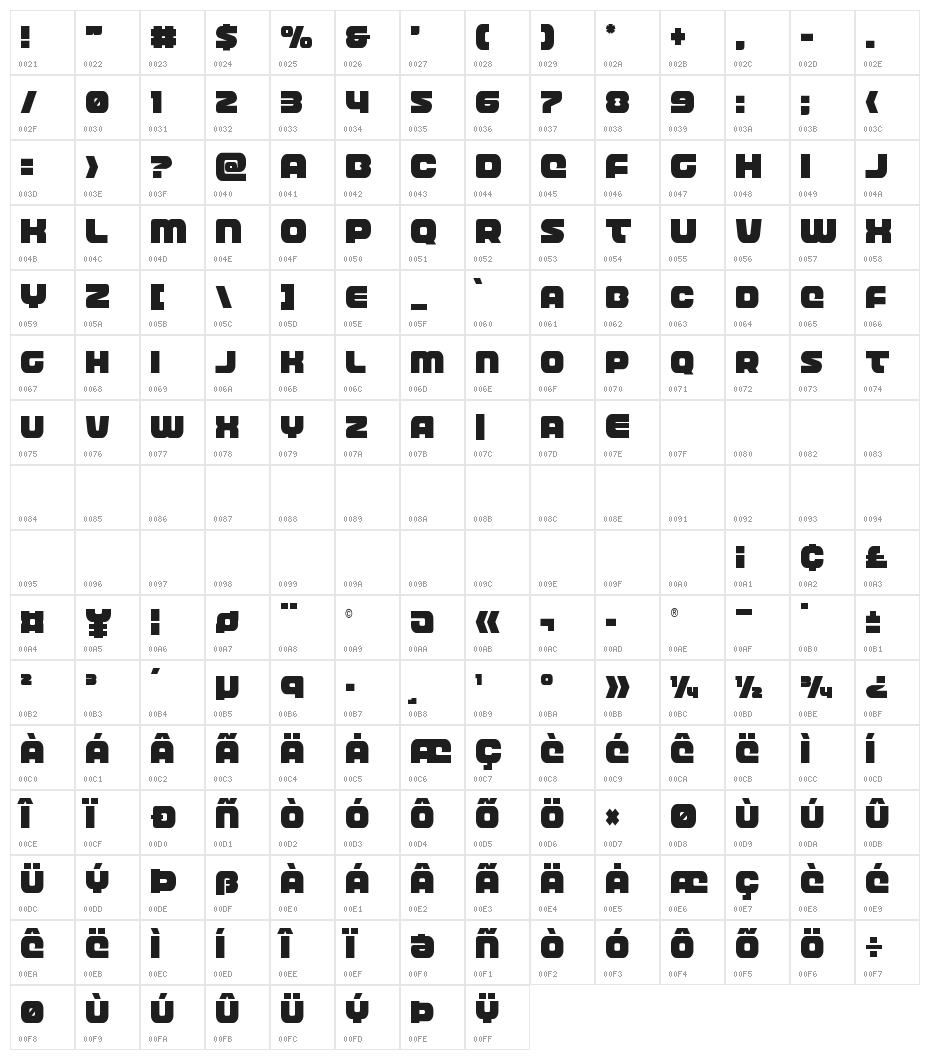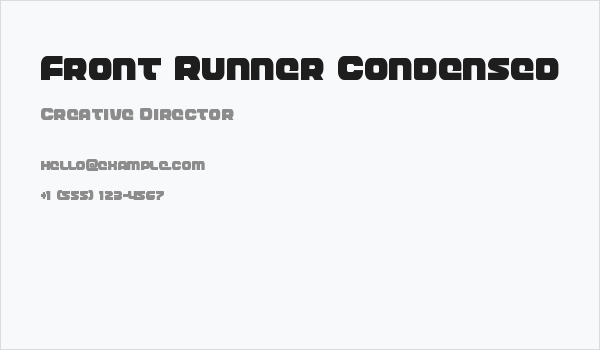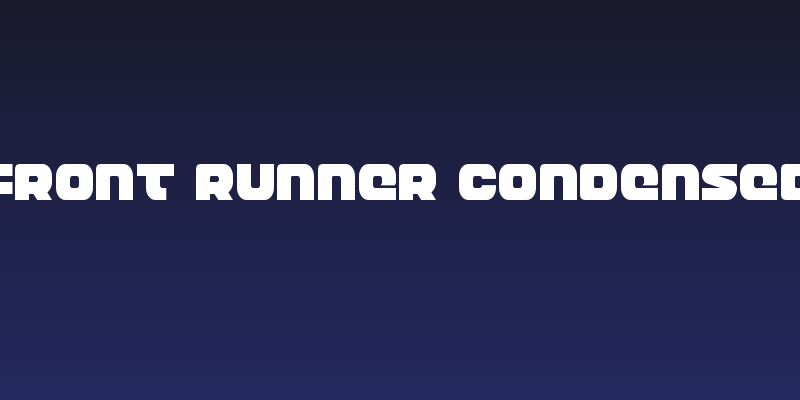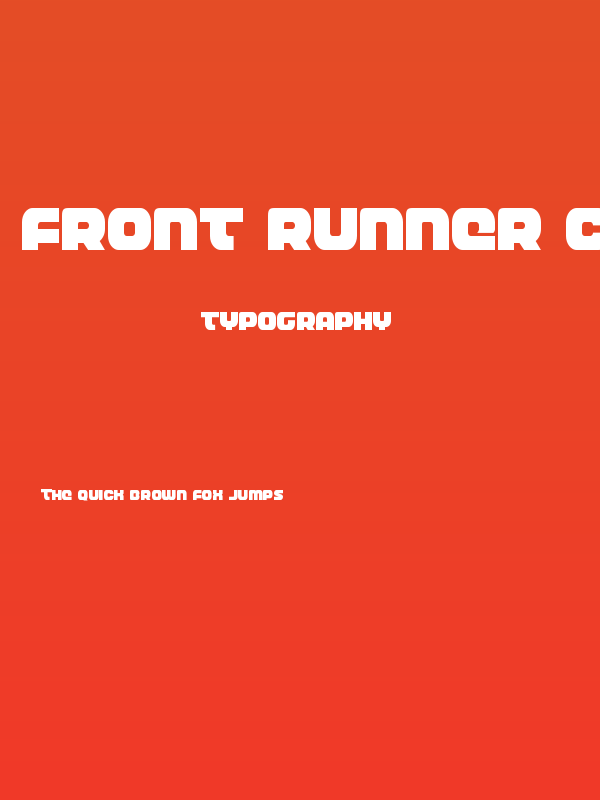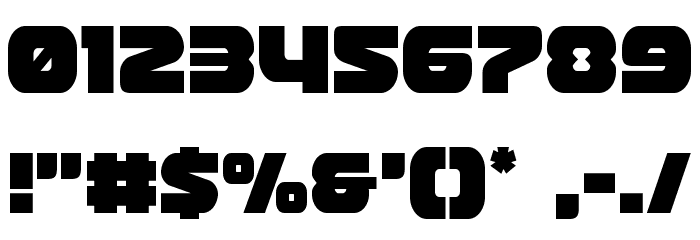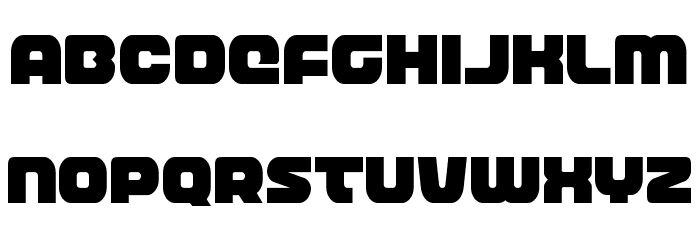
Front Runner Condensed Font
Front Runner Condensed Description
This font features a bold, geometric design with a strong presence. The characters are condensed, giving them a compact and sturdy appearance. The strokes are uniform in thickness, contributing to a cohesive and modern look. The uppercase letters are particularly striking, with sharp angles and a blocky style that commands attention. The numbers and special characters maintain the same boldness and geometric form, ensuring consistency across all elements. This font is ideal for making a statement, with its powerful and assertive design.
| Proposed Projects | Ideal for headlines, posters, logos, and branding projects where a strong visual impact is desired. |